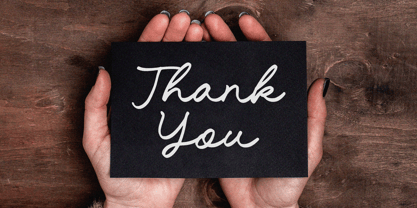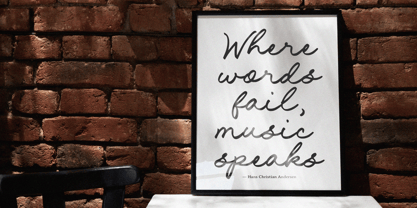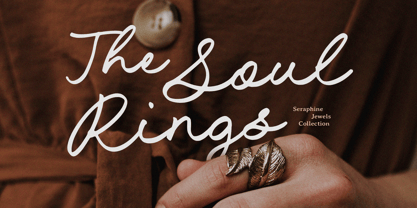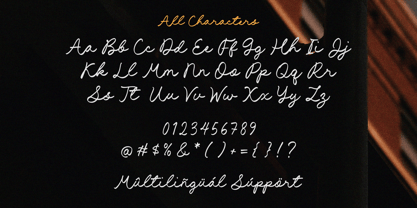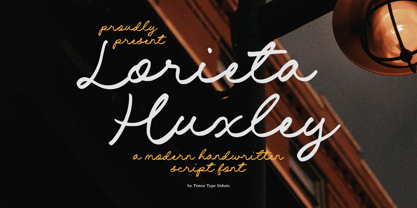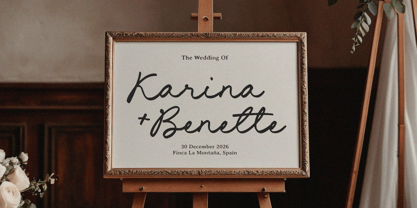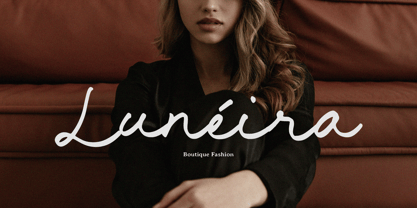
Lorieta Huxley
by Timurtype
The Lorieta Huxley Font Family was designed by Wara Sigit Tri Pamungkas and published by Timurtype. Lorieta Huxley contains 1 styles. More about this family
Lorieta Huxley is a Modern Handwritten Script Font
This font is a modern handwritten script font that blends elegance with a natural, flowing charm. Featuring smooth curves and stylish swashes, it’s perfect for branding, wedding invitations, social media graphics, and other creative projects that call for a personal, handcrafted touch. With its refined yet playful aesthetic, Lorieta Huxley brings sophistication and warmth to any design.
Lorieta Huxley Font also supports multilingualism
Designers: Wara Sigit Tri Pamungkas
Foundry: Timurtype